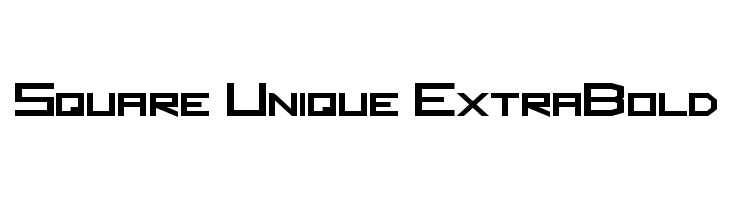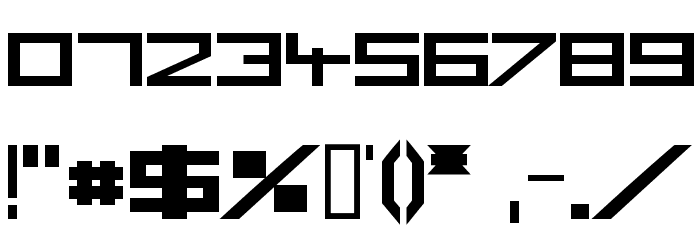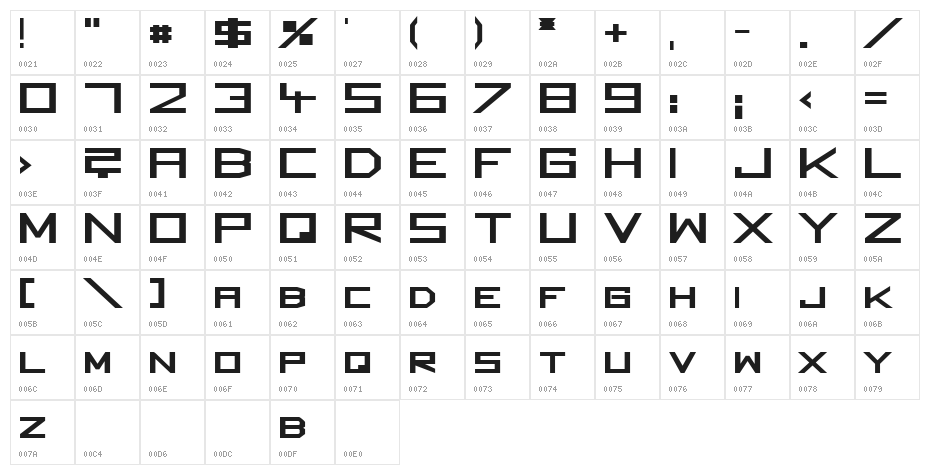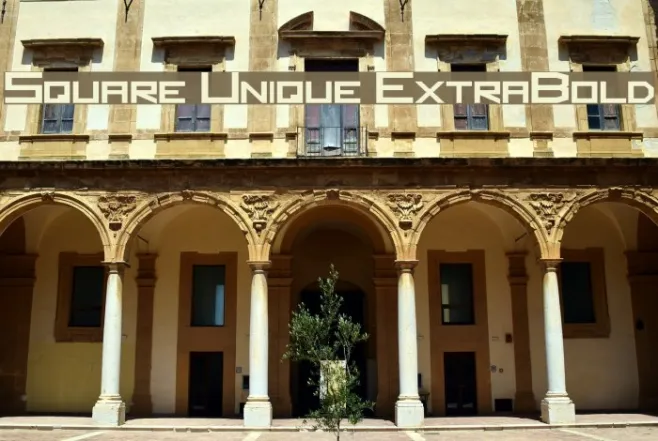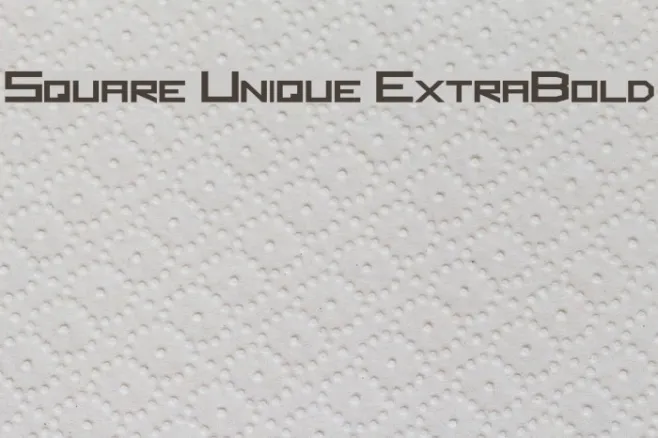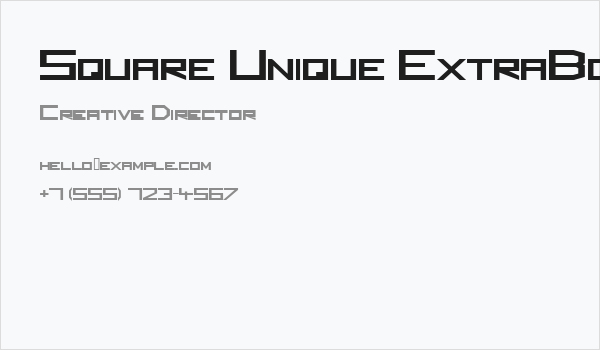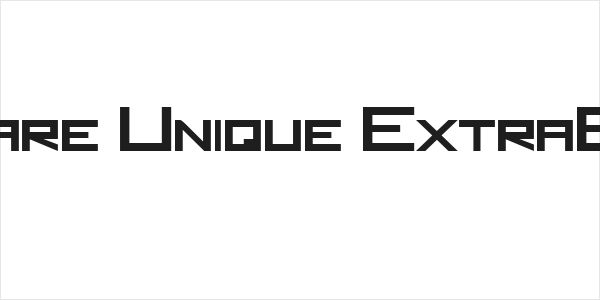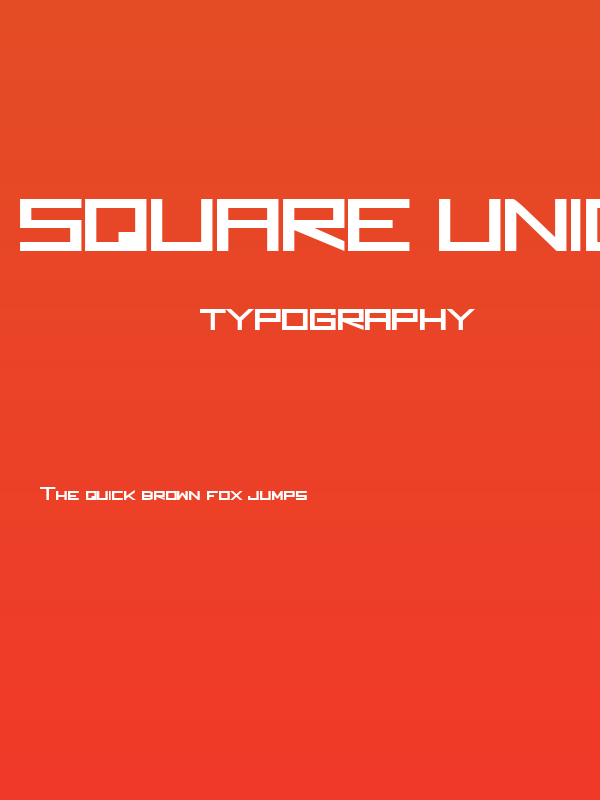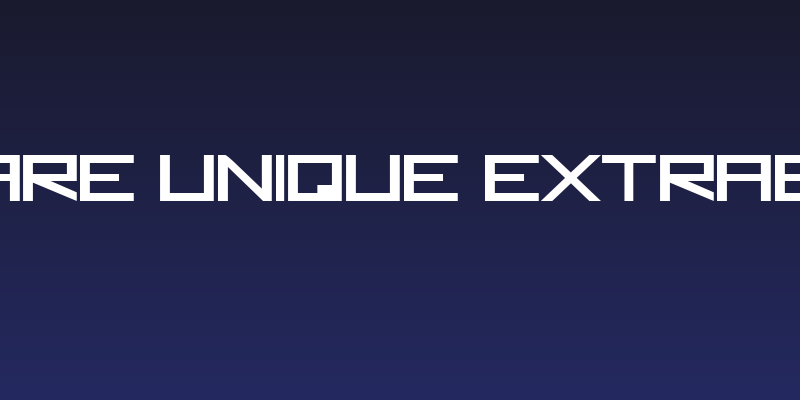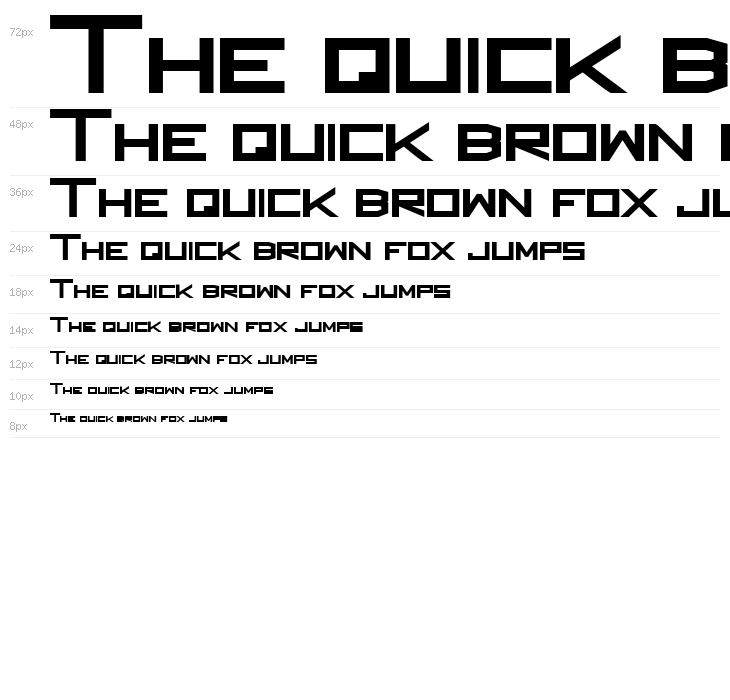
Square Unique ExtraBold Font
Square Unique ExtraBold Description
This font exhibits a bold, geometric style with a distinctly modern and futuristic appearance. The characters are constructed with sharp, angular lines and a uniform thickness, contributing to a cohesive and structured look. The uppercase letters are particularly striking, with a block-like form that emphasizes their boldness. The numbers and special characters maintain this geometric theme, ensuring consistency across all elements. This font's design is both eye-catching and functional, making it suitable for a variety of creative applications.
| Proposed Projects | Ideal for technology branding, sci-fi themed projects, video game titles, and modern poster designs. |